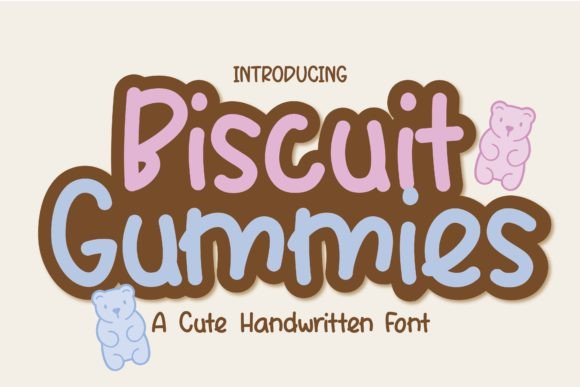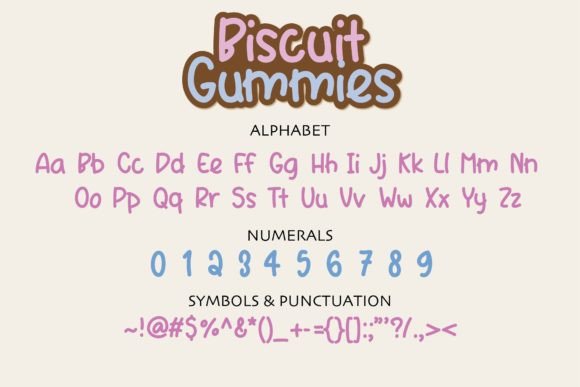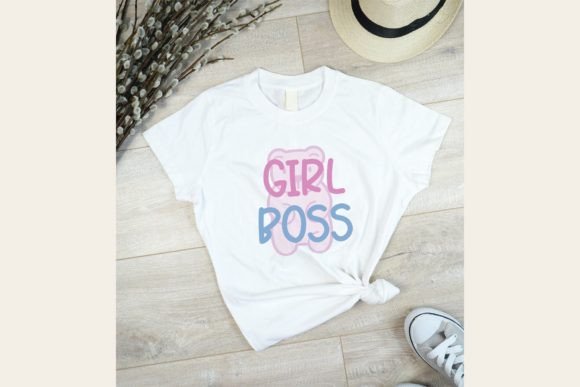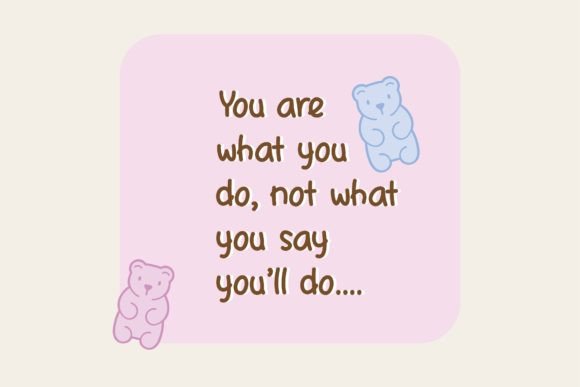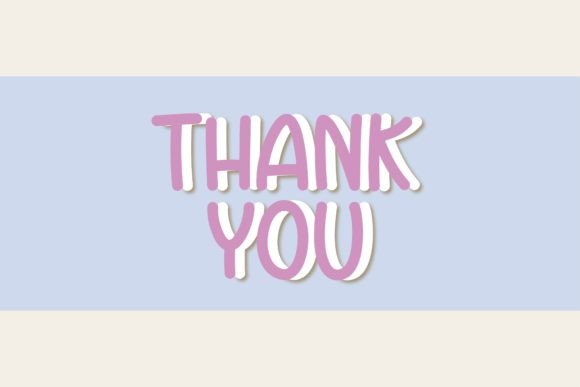
Biscuit Gummies Font
About Biscuit Gummies Font
“Biscuit Gummies: Where Cuteness Meets Flexibility in Handwritten Typography
Introducing Biscuit Gummies, a cute and flexible handwritten font designed to add a touch of charm and playfulness to your creative projects. With its natural and unique style, this font is not just a typeface; it’s an embodiment of creativity and fun. Its versatility allows you to explore endless variations, making it incredibly fitting for a wide range of designs. From wedding invitations to thank you cards, quotes, greeting cards, logos, and business cards, Biscuit Gummies adds a handwritten touch that transforms every design into a delightful work of art.
The allure of Biscuit Gummies lies in its cuteness and flexibility, where each letter is crafted to exude a sense of charm and playfulness. Its natural strokes and unique character design create a visual harmony that adds a touch of whimsy to your designs. Imagine your wedding invitations adorned with Biscuit Gummies’ cute handwritten script, setting the stage for a joyful and memorable celebration. Picture your business cards featuring its playful letterforms, leaving a lasting impression with a touch of creativity. With Biscuit Gummies, your designs come to life with a sense of fun, making them visually captivating and emotionally resonant.
One of Biscuit Gummies’ standout features is its ability to adapt seamlessly to various designs. Its flexibility allows you to experiment with different styles and explore endless possibilities. Whether you’re crafting quotes, creating logos, or working on any project that demands a handwritten touch, Biscuit Gummies enhances your designs with its delightful presence, making them stand out with a unique blend of cuteness and creativity.
Moreover, Biscuit Gummies is more than just a font; it’s an invitation to have fun with your creativity. Its playful and flexible nature resonates with individuals who appreciate the joy of creative expression, making it a favorite among designers and enthusiasts seeking a font that exudes charm and playfulness. Its presence adds a layer of warmth and lightheartedness to your designs, making them visually captivating and unforgettable.
In a world where creativity knows no boundaries, Biscuit Gummies helps you make a statement. It speaks the language of cuteness and flexibility, resonating with those who appreciate the beauty of handwritten artistry with a playful twist. Whether you’re designing for weddings, business, or any creative endeavor, Biscuit Gummies becomes your trusted companion, guiding you toward design excellence.
So, why settle for ordinary when you can embrace the extraordinary with Biscuit Gummies? Let this cute and flexible handwritten font be the muse for your creative expressions, and watch as your projects come to life with charm, playfulness, and endless possibilities. Let your creativity flow, and let Biscuit Gummies be the brushstroke that paints your ideas into visually captivating masterpieces, leaving a lasting impression on the hearts of your audience.”